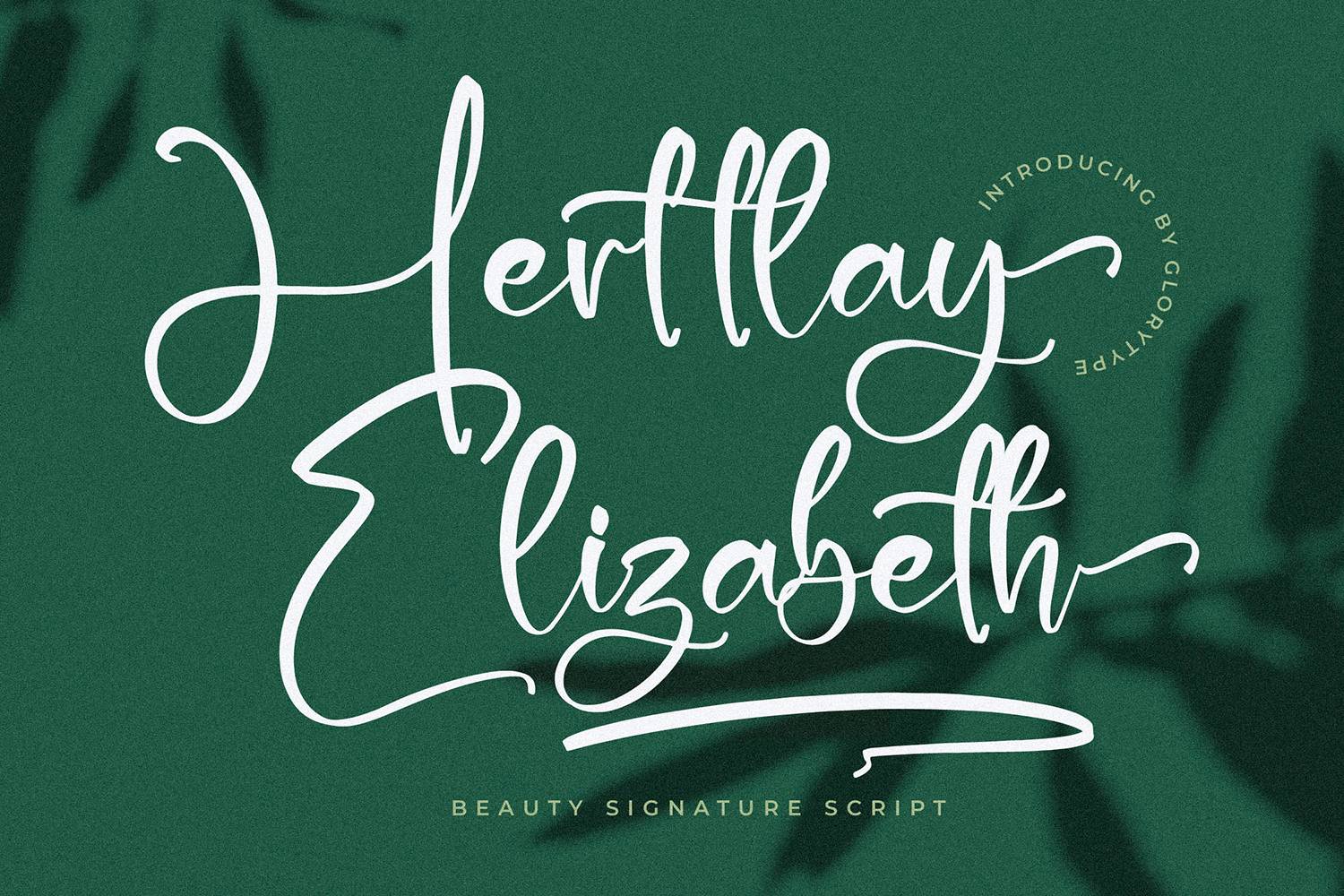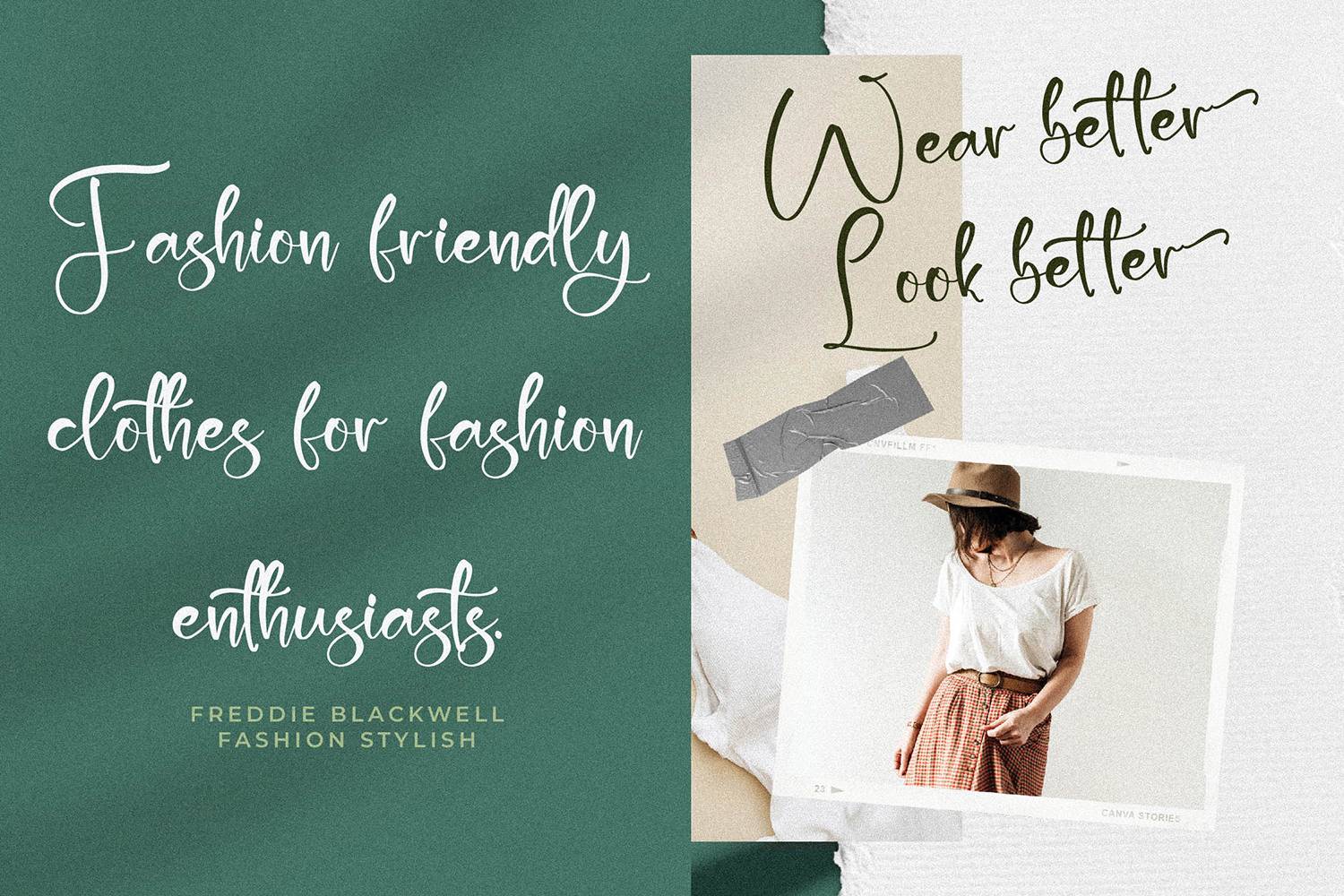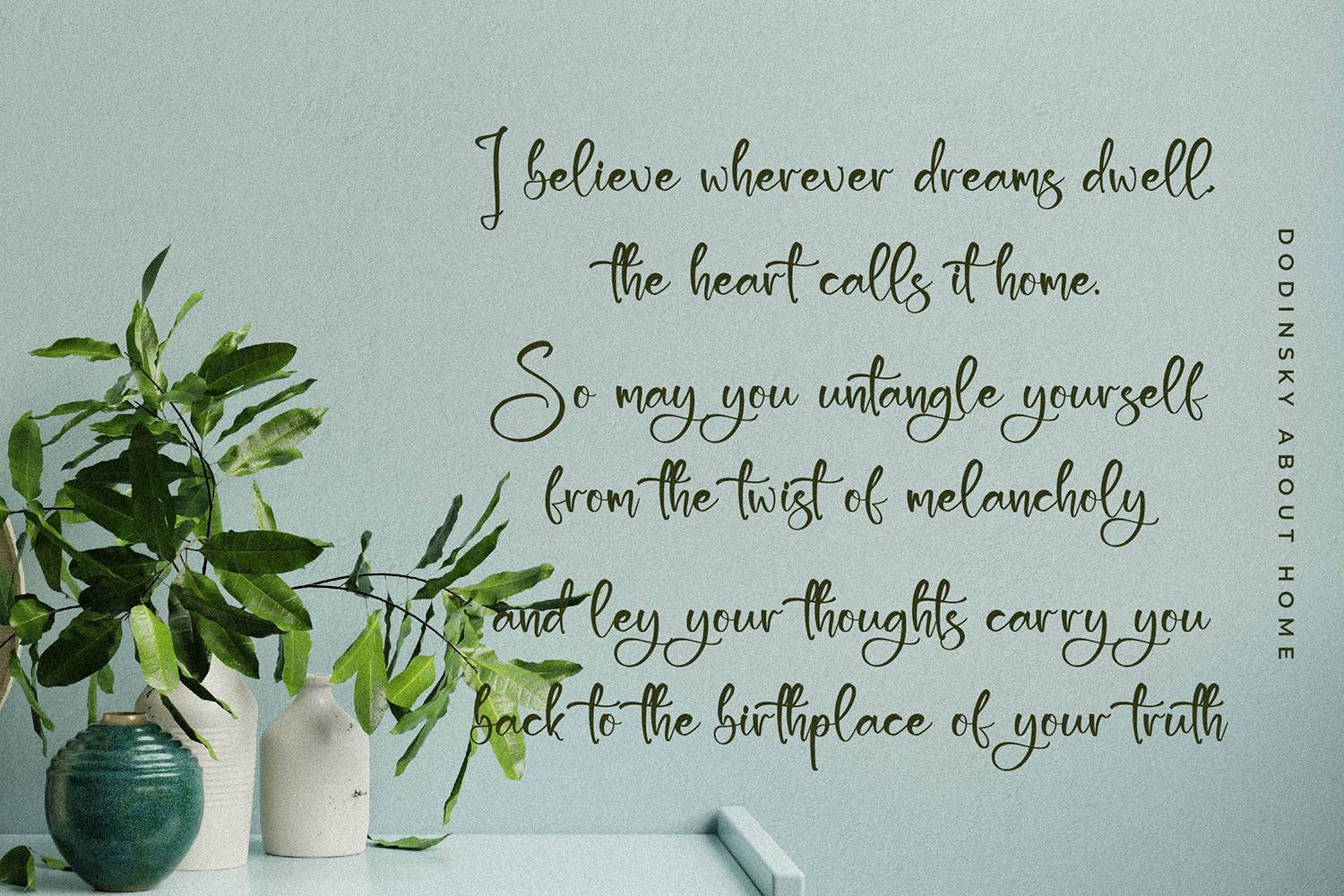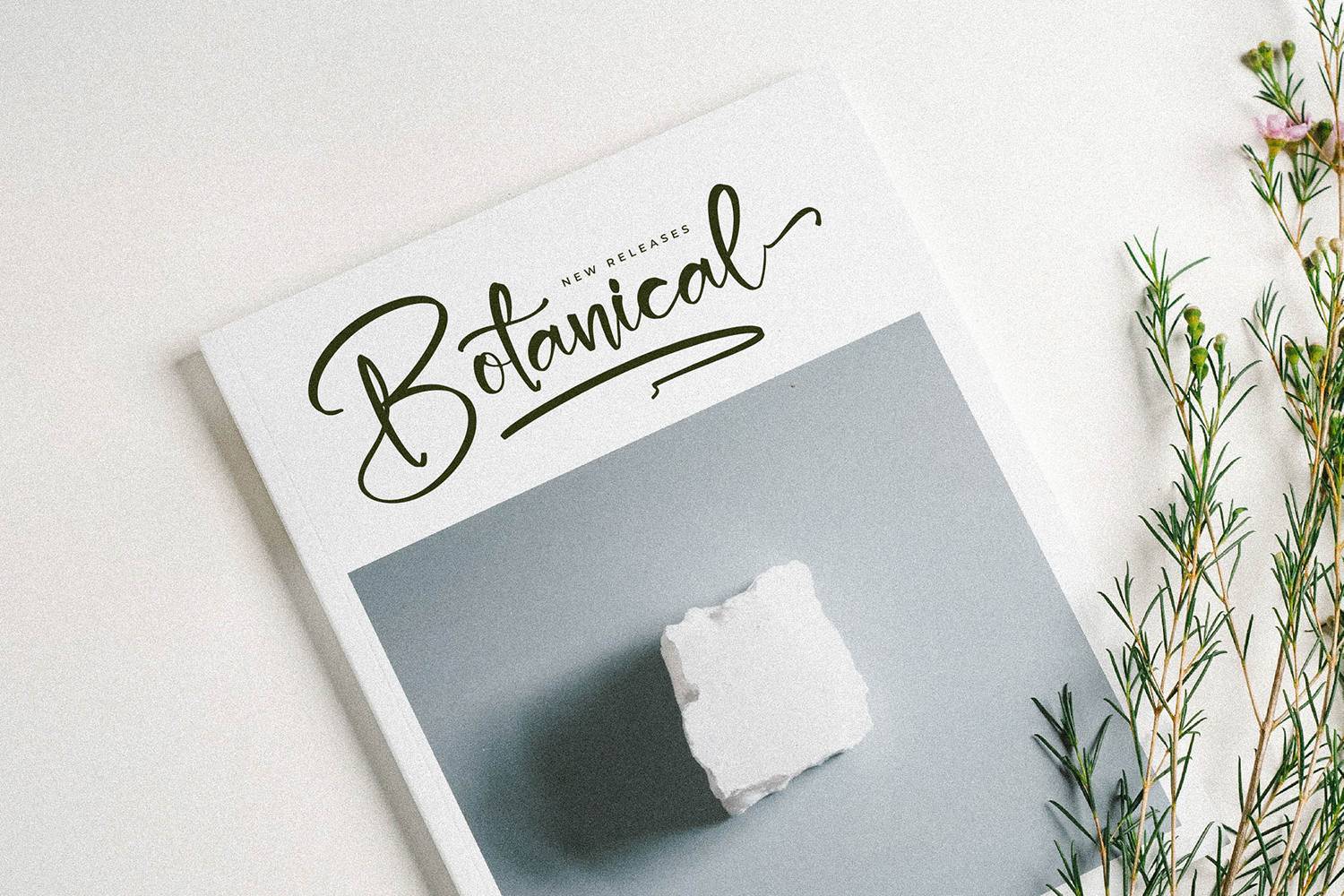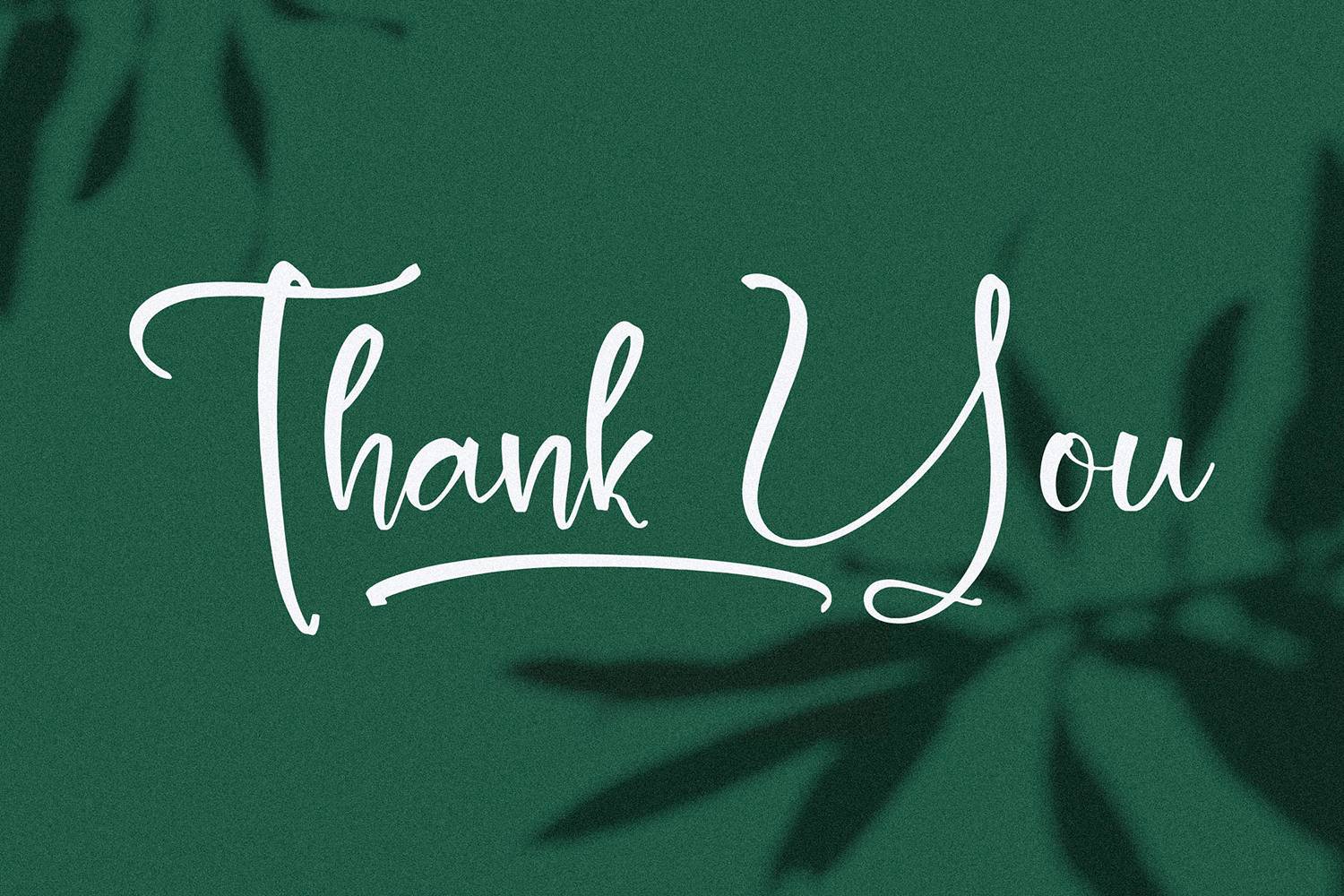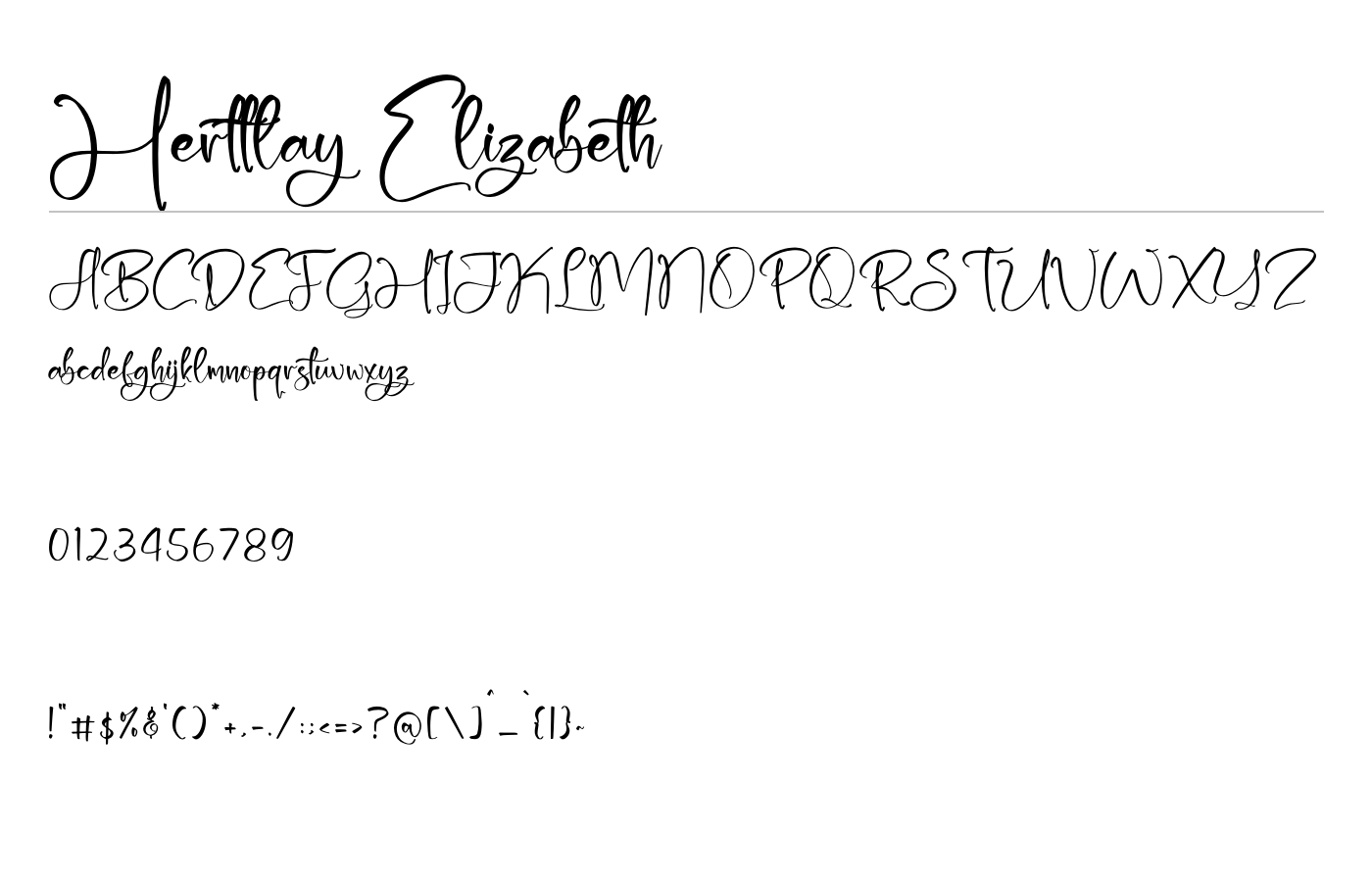
Herttlay Elizabeth is a delicate, handwritten script font that features elegant, flowing lines with a playful yet refined character. Its thin, graceful strokes and whimsical letterforms make it ideal for romantic invitations, personal branding, and creative projects that seek a charming, sophisticated touch. This font shines best in large sizes for headlines or logos where its unique style can truly stand out.